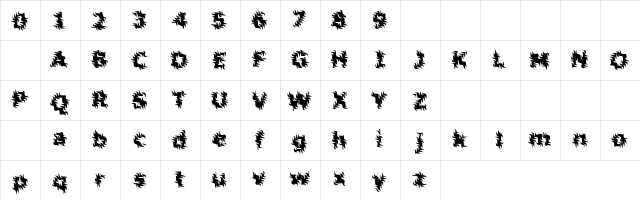
Swim Regular
Design Context for Swim Typeface
Swim is a composed and adaptable typeface that performs quietly and consistently across a wide range of design contexts.